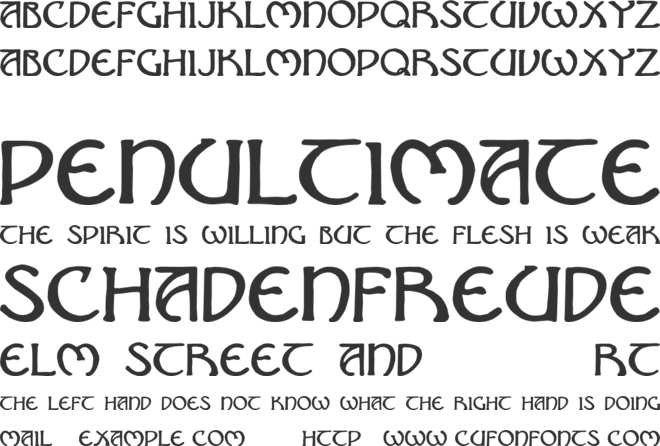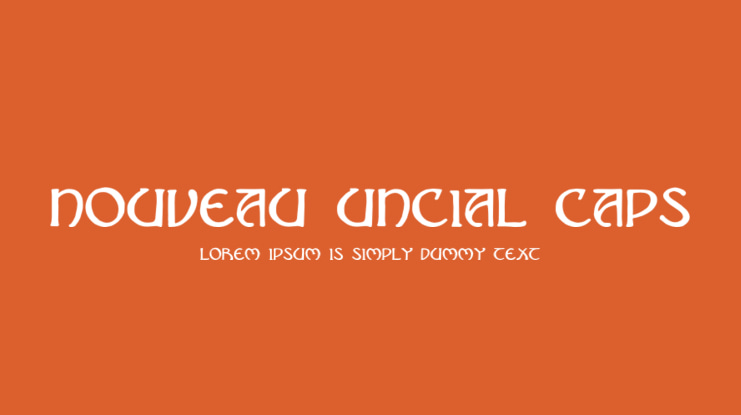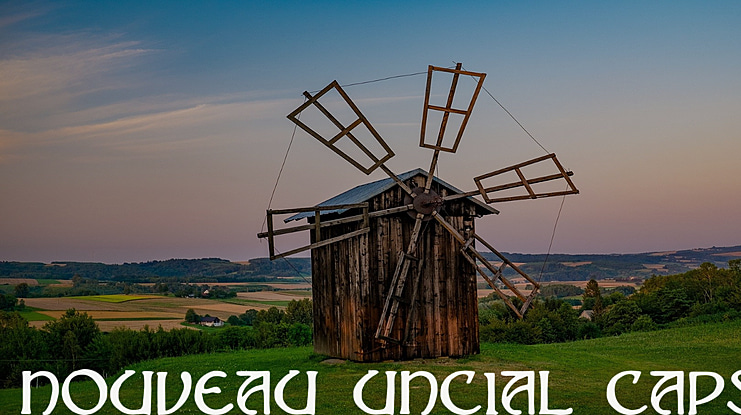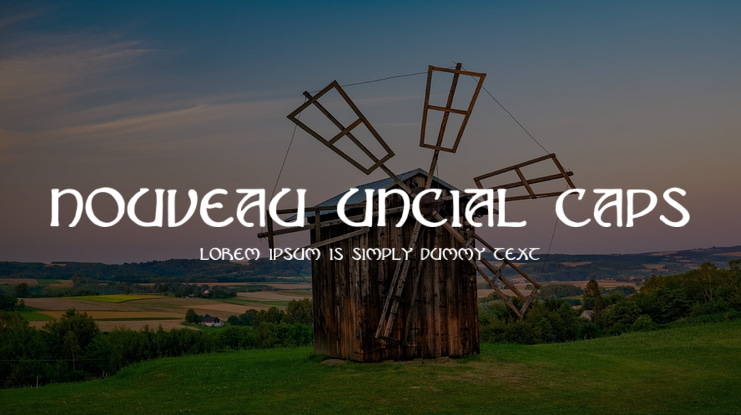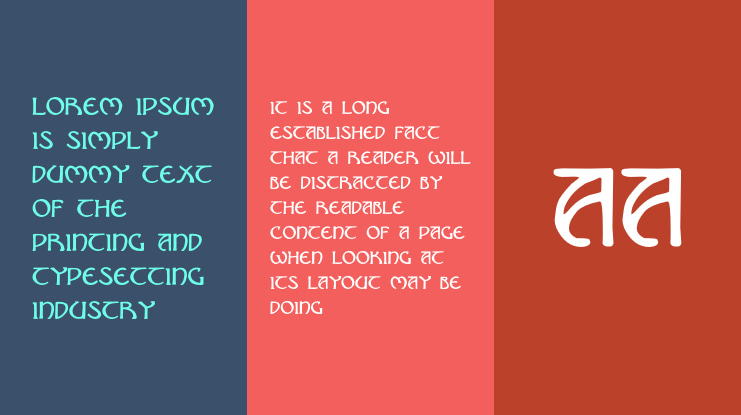
Nouveau Uncial Caps Font
James Greenwood
Here is an Art Nouveau take on the historic uncials, based on an old scan. Only available in majiscules (capitals). Suitable for display purposes. No punctuation is included. I included a TrueType and OpenType version.